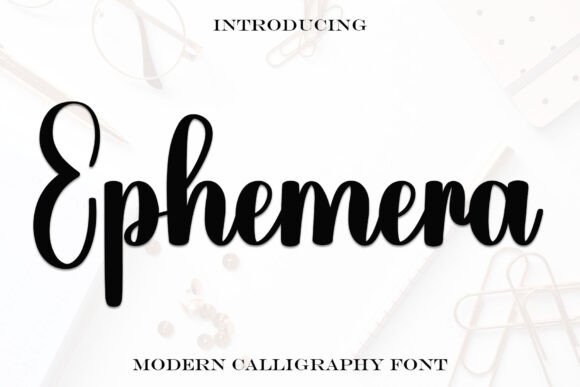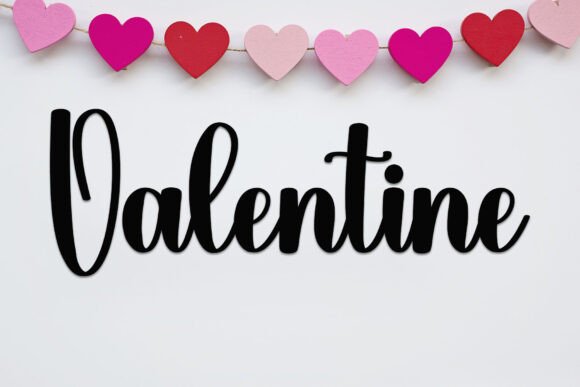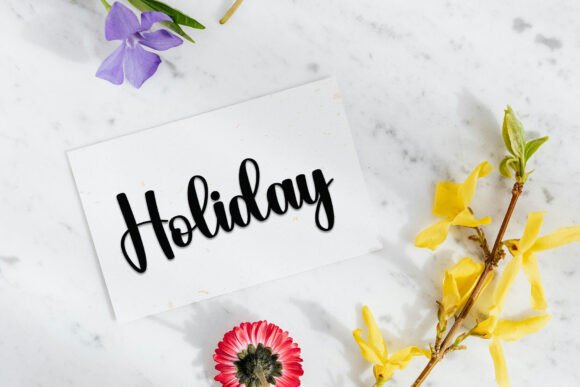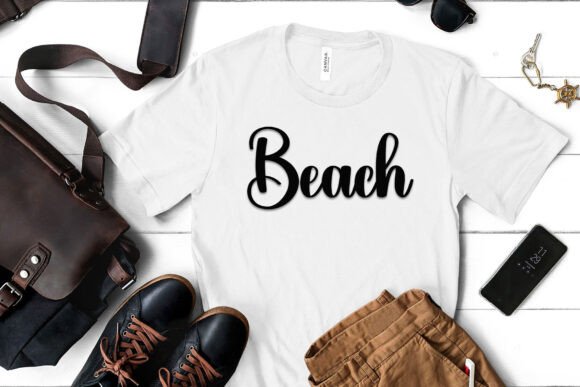
Ephemera Font: Sweet Handwritten Calligraphy for Wedding & Branding
About the Ephemera Font
Add a touch of class to your work with the Ephemera Font, a truly exceptional typeface. Ephemera is a sweet and cursive handwritten font. This gentle font will look gorgeous on a variety of design ideas. It will add a joyful and romantic touch to each of your projects! Perfectly fit for branding, logo, wedding things, greeting cards, fashion, lookbook, marketing promotion, and any time you want your design to look fancy and elegant but still casual.
Ephemera’s flowing script is ideal for headlines, short text blocks on invitations or packaging, and branding elements where a touch of romantic elegance is desired. It excels in projects emphasizing a handcrafted, personal feel, such as wedding stationery or boutique branding. However, its cursive nature makes it unsuitable for body text or UI elements requiring high readability. Avoid using it in lengthy paragraphs or situations demanding quick comprehension.
Pair Ephemera with a clean sans-serif like Montserrat for a balanced contrast, or a classic serif such as Playfair Display for a more traditional feel. For a playful juxtaposition, consider a geometric sans-serif font like Futura. These pairings provide strong visual anchors and improve overall legibility.
Ephemera projects a lighthearted yet sophisticated personality. Its gentle curves and organic forms communicate a sense of warmth and charm, making it perfectly suited for brands and projects aiming for a friendly, approachable, yet undeniably elegant aesthetic.
Ephemera Font Usage Examples
Ephemera Font Example